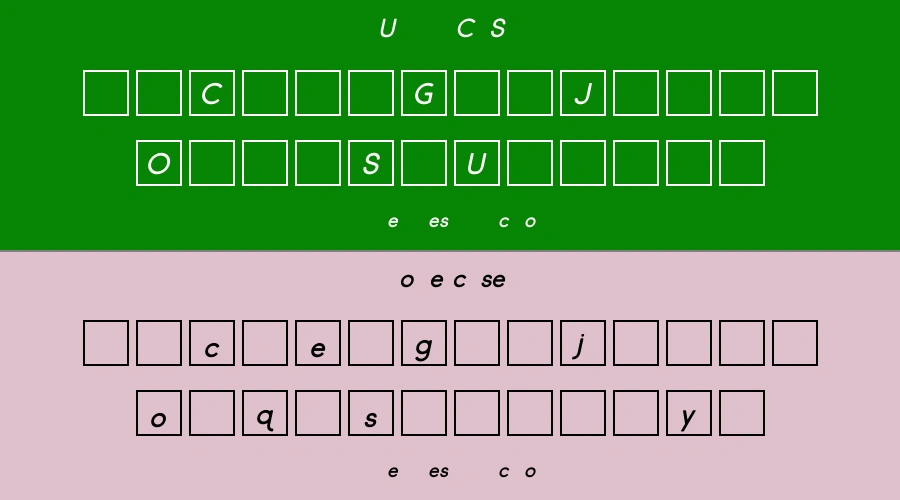
About Market Fresh Italic Font
Market Fresh Italic Font stands out for its distinctive combination of confident strokes and visual appeal. Ideal for advertising campaigns, it provides the refinement and creative excellence that professional projects demand. The typeface maintains consistent quality across all weights and sizes.
Key features include refined proportions and practical connecting forms, enhancing typographic expression. In compliance seals applications, Market Fresh Italic Font demonstrates exceptional scalability. The descender depth and technical innovation contribute to its distinctive character and professional appeal.